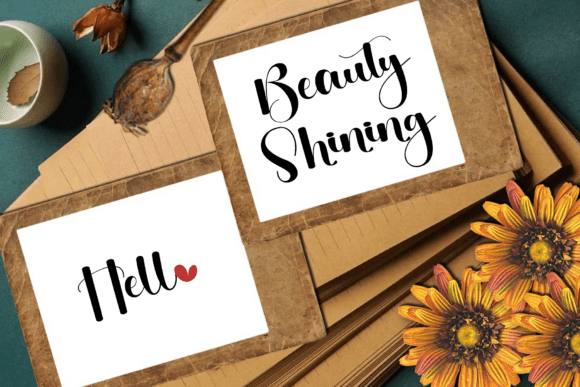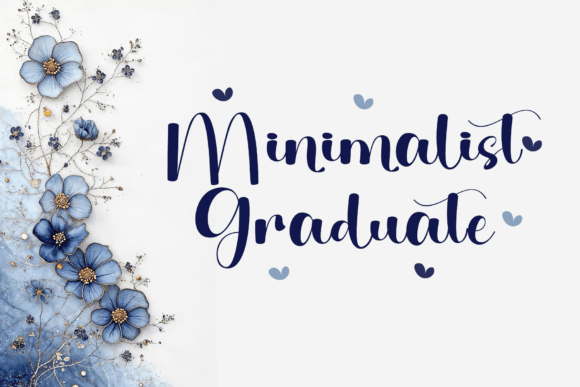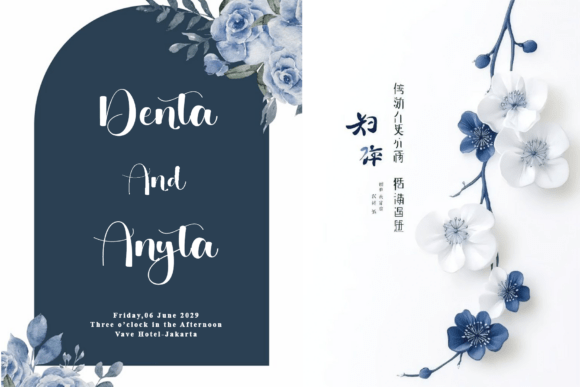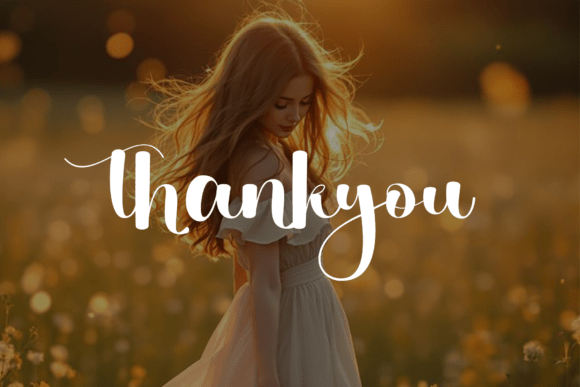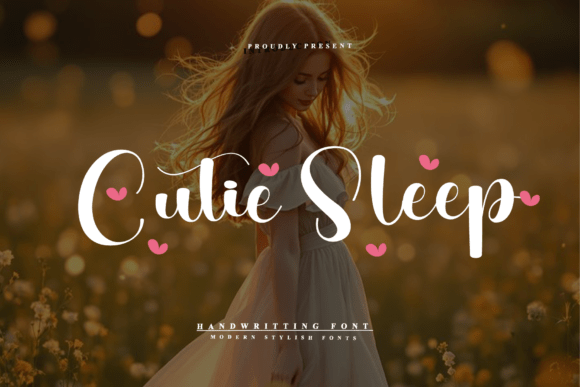
Introducing Cutie Sleep Font: The Ultimate Choice for Designers and Crafters
Are you tired of using the same old fonts for your designs? Look no further! Cutie Sleep Font is a lovely and timeless handwritten font that is sure to take your designs to the next level. With its unique and beautiful touch, Cutie Sleep Font is the perfect choice for creating eye-catching logos, branding, and quotes that will make your design come alive!
The Characteristics of Cutie Sleep Font
Cutie Sleep Font is a handwritten font that exudes a sense of elegance and sophistication. Every letter has a unique and beautiful touch, which sets it apart from other fonts. The font is designed to be highly legible, making it perfect for use in a variety of design applications, from logos and branding to quotes and social media graphics.
Why Choose Cutie Sleep Font?
So, why should you choose Cutie Sleep Font for your design needs? Here are just a few reasons:
- Unique and Beautiful Touch: Every letter in Cutie Sleep Font has a unique and beautiful touch that will add a personal touch to your designs.
- Elegant and Sophisticated: Cutie Sleep Font has an elegant and sophisticated feel that is perfect for creating high-end designs.
- Highly Legible: The font is designed to be highly legible, making it perfect for use in a variety of design applications.
- Versatile: Cutie Sleep Font is a versatile font that can be used in a variety of design applications, from logos and branding to quotes and social media graphics.
How to Use Cutie Sleep Font in Your Designs
Using Cutie Sleep Font in your designs is easy! Here are a few tips to get you started:
- Logos and Branding: Use Cutie Sleep Font to create eye-catching logos and branding materials that will set your business apart.
- Quotes and Social Media Graphics: Use Cutie Sleep Font to create inspiring quotes and social media graphics that will engage your audience.
- Invitations and Stationery: Use Cutie Sleep Font to create beautiful invitations and stationery that will add a personal touch to your correspondence.
Tips and Tricks for Getting the Most Out of Cutie Sleep Font
Here are a few tips and tricks for getting the most out of Cutie Sleep Font:
- Experiment with Different Colors: Cutie Sleep Font looks great in a variety of colors, so don’t be afraid to experiment and find the perfect color for your design.
- Pair with Other Fonts: Cutie Sleep Font pairs well with other fonts, so try pairing it with a bold font for a striking contrast.
- Use in Combination with Images: Cutie Sleep Font looks great in combination with images, so try using it to add a personal touch to your graphics.
In conclusion, Cutie Sleep Font is a lovely and timeless handwritten font that is perfect for designers and crafters looking to add a personal touch to their designs. With its unique and beautiful touch, Cutie Sleep Font is sure to take your designs to the next level. So why wait? Download Cutie Sleep Font today and start creating eye-catching logos, branding, and quotes that will make your design come alive!